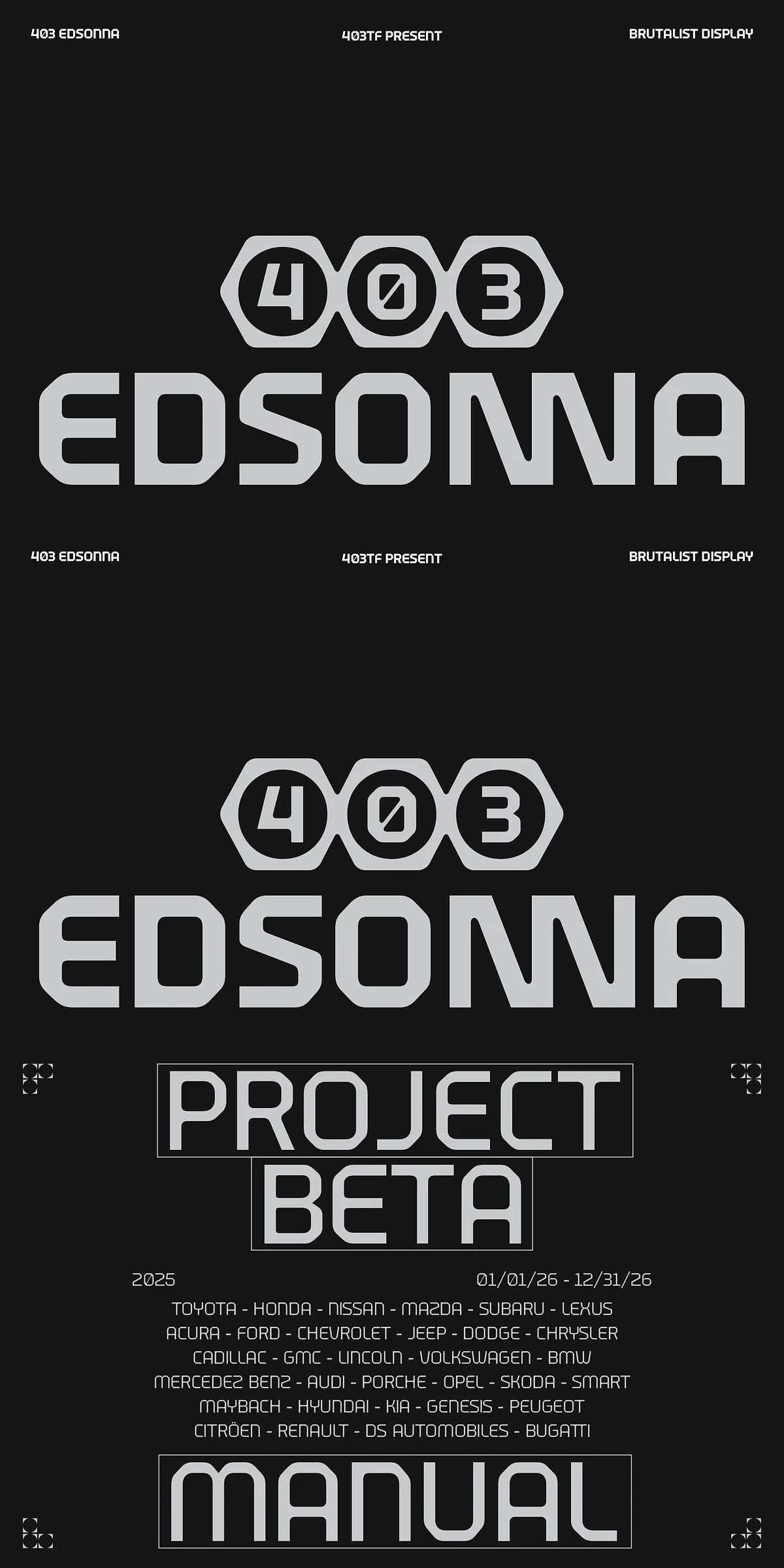
Step into the future of typography with 403 Edsonna — a no-compromise, variable typeface engineered at the boundary of machine precision and radical modernism. This isn’t just a font. It’s a design force. It doesn’t merely occupy space on the page — it constructs environments, commands attention, and instills a sense of authority that speaks directly to the digital age.
Engineered for Authority: The Essence of Technical Brutalism
Where Industrial Precision Meets Expressive Strength
403 Edsonna is born from the philosophy of Technical Brutalism — a visual manifesto where the beauty of the machine takes center stage. Inspired by terminal data streams, logistics labeling, architectural schematics, and industrial signage, this typeface delivers a cold, calculated elegance that feels both futuristic and grounded. Its squared-off terminals, sharp angles, and wide cinematic stance create a visual rhythm that is deliberate, monolithic, and unmistakably powerful.
Every glyph is designed to perform. Whether deployed in the razor-sharp Thin weight for dense UI text or the dominant Bold for headline dominance, Edsonna maintains its structural integrity, visual balance, and unapologetic presence. It’s the font you turn to when you need typography that doesn’t whisper — it commands.
Power in Every Weight: A Variable Type System Built for Performance
Flexible, Functional, Futuristic — All in One Typeface
403 Edsonna is not limited to static weights. With its 5 versatile weights (Thin, Regular, Medium, Bold, Extra Bold), it offers full variable control — ideal for dynamic design systems, responsive UIs, and adaptive branding. Adjust dynamically across screens, sizes, and devices without losing clarity or impact.
Complementing the core weights are Regular and Slanted (Oblique) styles that add rhythm and motion. Use the Oblique for editorial layouts, music posters, or any context where you need a sense of controlled movement. The slant isn’t decorative — it’s functional, reinforcing momentum and forward momentum in your design.
Designed for Real-World Impact: From Interface to Identity
High-Performance Typography for the Modern Designer
403 Edsonna was built for professionals who demand performance, clarity, and impact. Use it in:
- UI/UX Design — Build futuristic dashboards, data visualization platforms, and digital workspaces where legibility under pressure is non-negotiable.
- Brand Identity Systems — Perfect for automotive, tech-apparel, and independent product labels that need to project industrial strength and forward-thinking vision.
- Editorial Design — Craft brutalist layouts, magazine covers, and magazine section headers with unrelenting visual presence.
- Streetwear & Music Branding — Create vinyl sleeves, festival posters, merch drops, and apparel tags with high-impact, machine-grade authenticity.
- Information Displays — Function flawlessly in tight grids like flight arrival boards, project manuals, and technical documentation, where space is limited but readability is critical.
This is typography that performs under pressure and thrives in the spotlight.
Advanced Features for Creative Mastery
Tools That Empower — Not Hinder
403 Edsonna goes beyond basic character sets. It’s a full-featured typography toolkit designed for precision and expression:
- More than 692 glyphs per weight — Rich symbol set, extended punctuation, and support for complex typographic needs.
- Standard ligatures — Eliminate awkward spacing between repeated letter pairs like “ff,” “fi,” and “fl” for a smoother, more fluid reading experience.
- Stylistic alternates — Swap in custom glyph variations to add unique visual personality and avoid repetition.
- Fraction support — Ideal for scientific, technical, and editorial content.
- Full multilingual support — Covers Latin, Greek, and Cyrillic scripts with extended character sets — built for global campaigns and international audiences.
- Advanced kerning pairs — Pre-tuned spacing for optimal visual harmony across all combinations.
Every detail is optimized for professional use — no manual adjustments needed.
Why 403 Edsonna Is the Ultimate Design Weapon
More Than a Type Family — It’s a Competitive Edge
In a world flooded with predictable fonts, 403 Edsonna stands apart. It’s not just about looking sharp — it’s about performing at a high level. It offers: